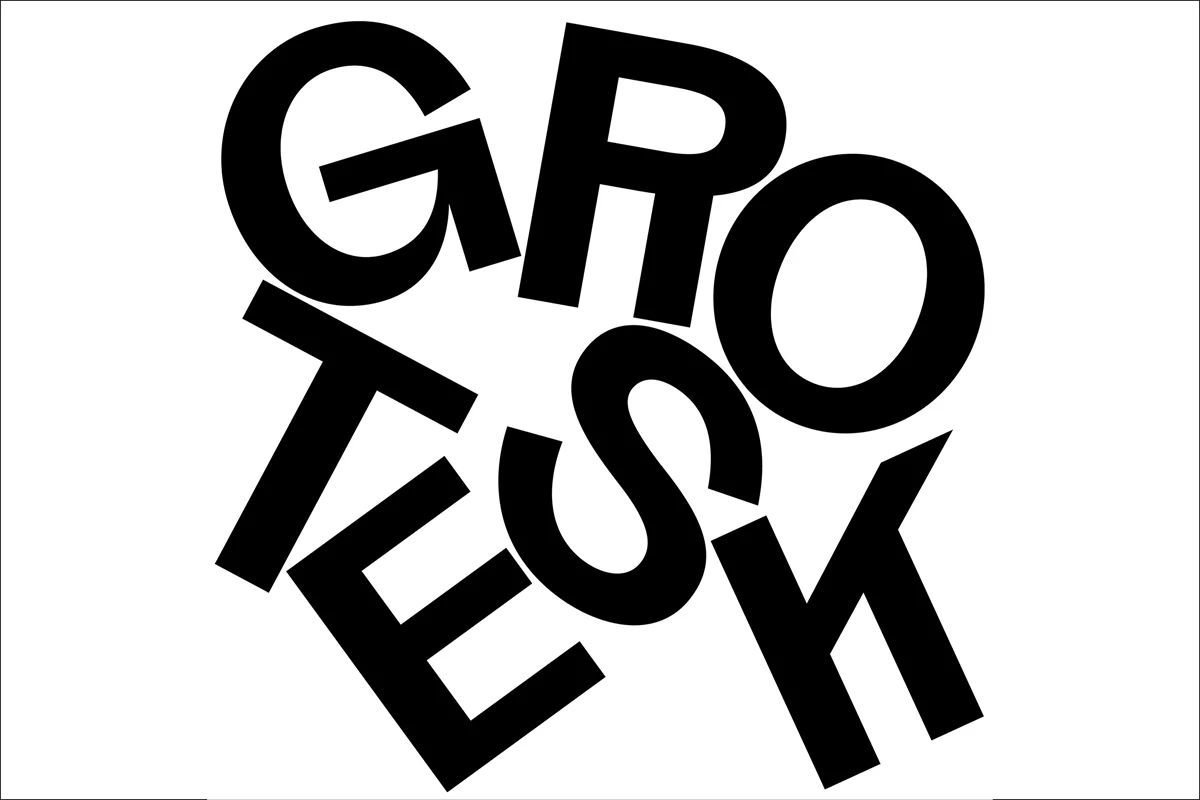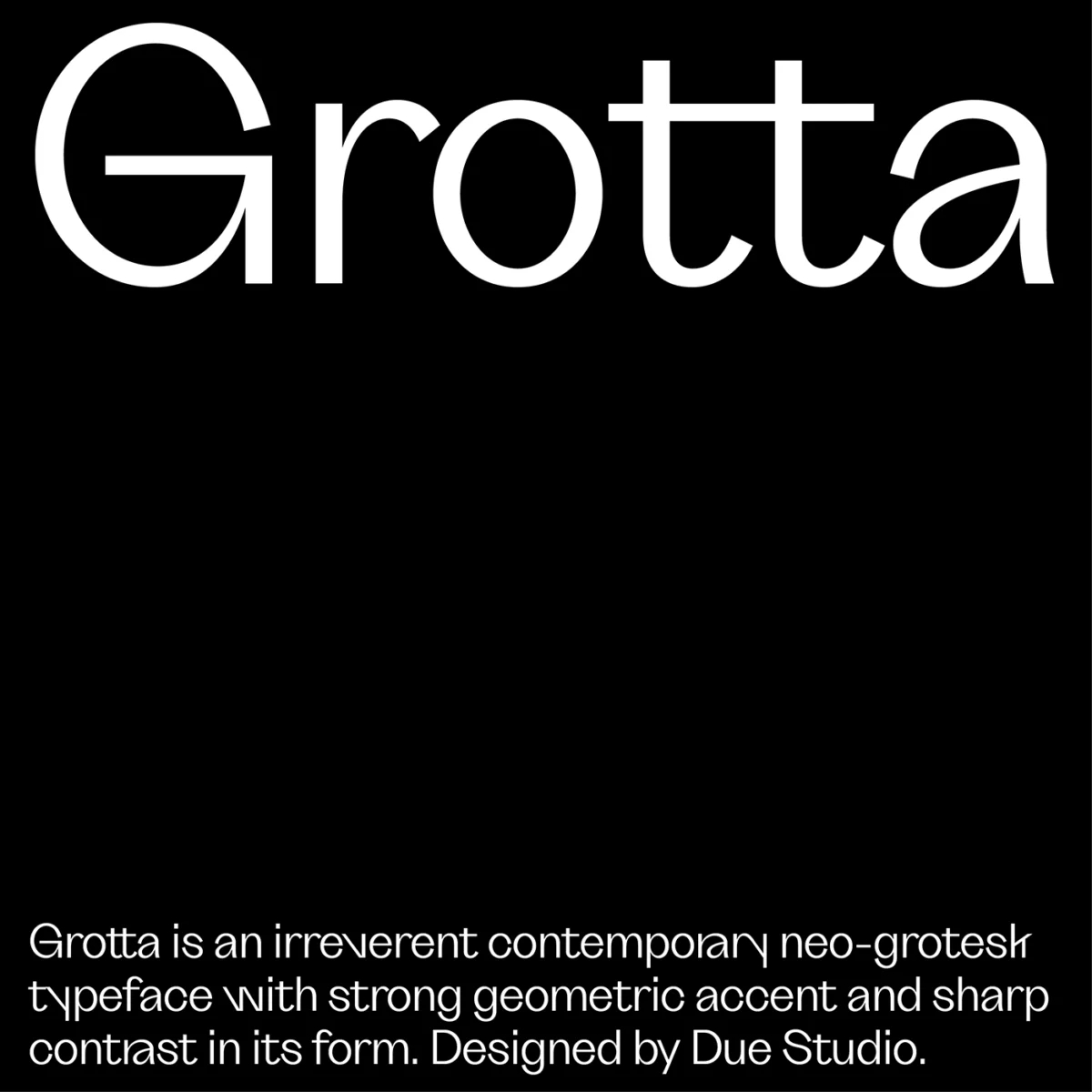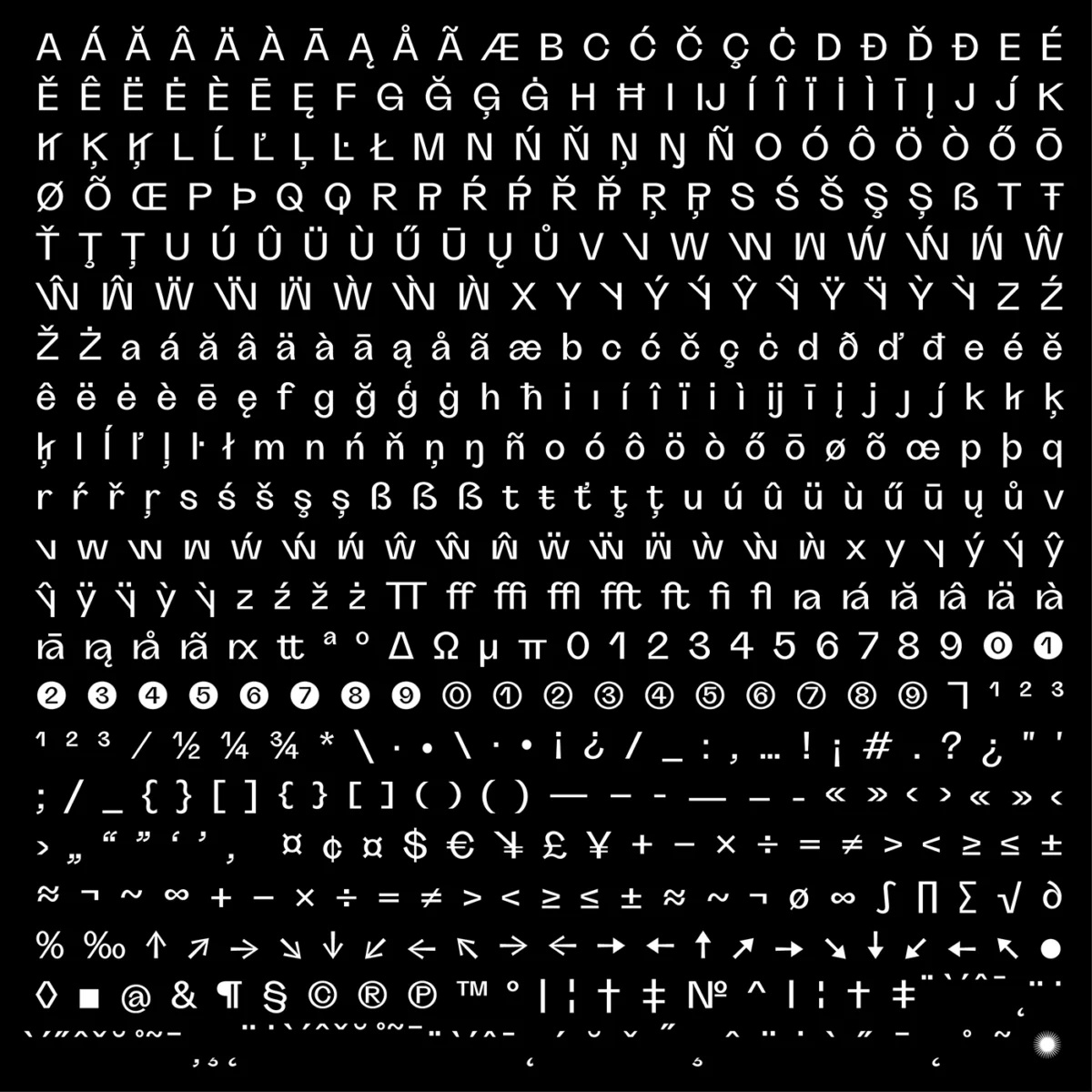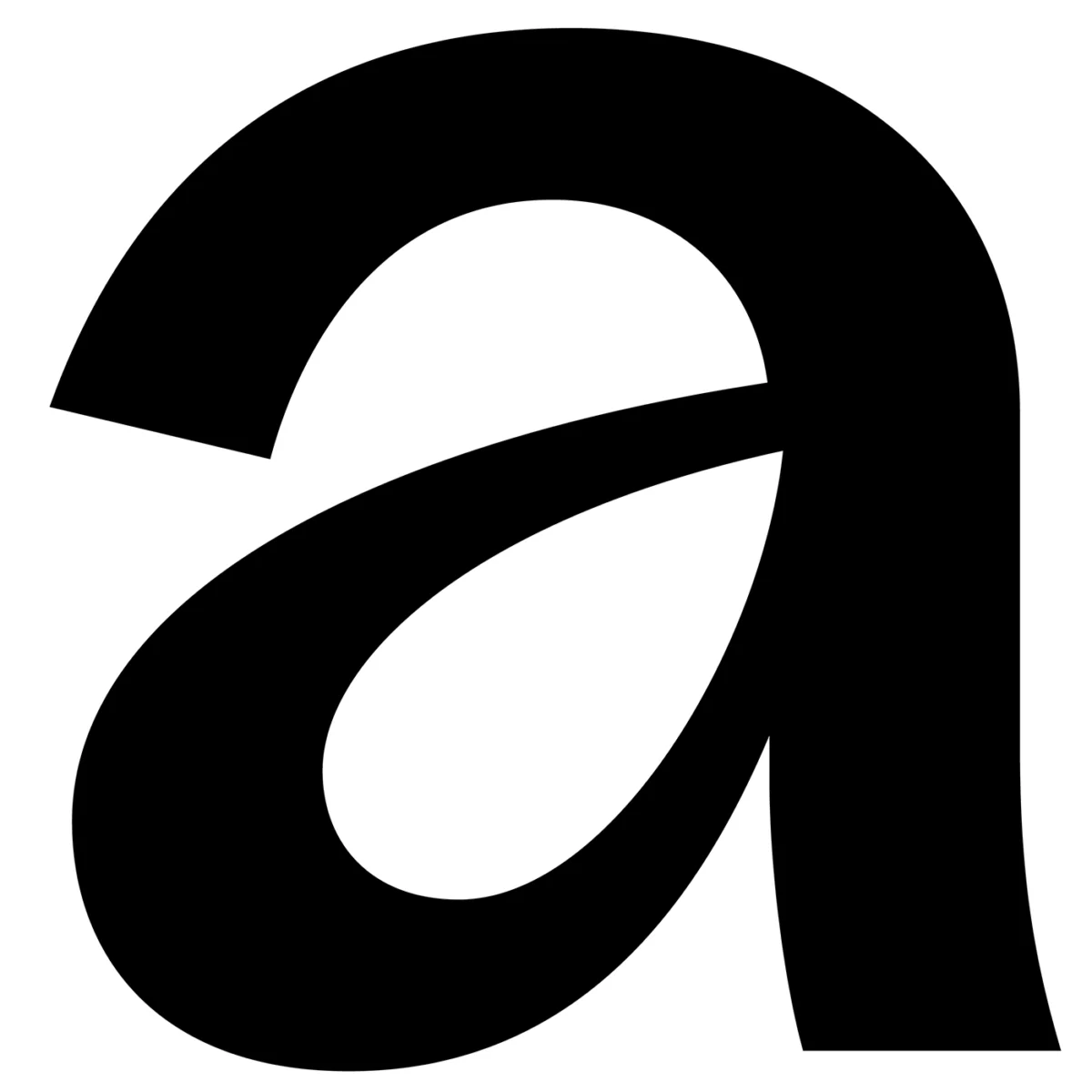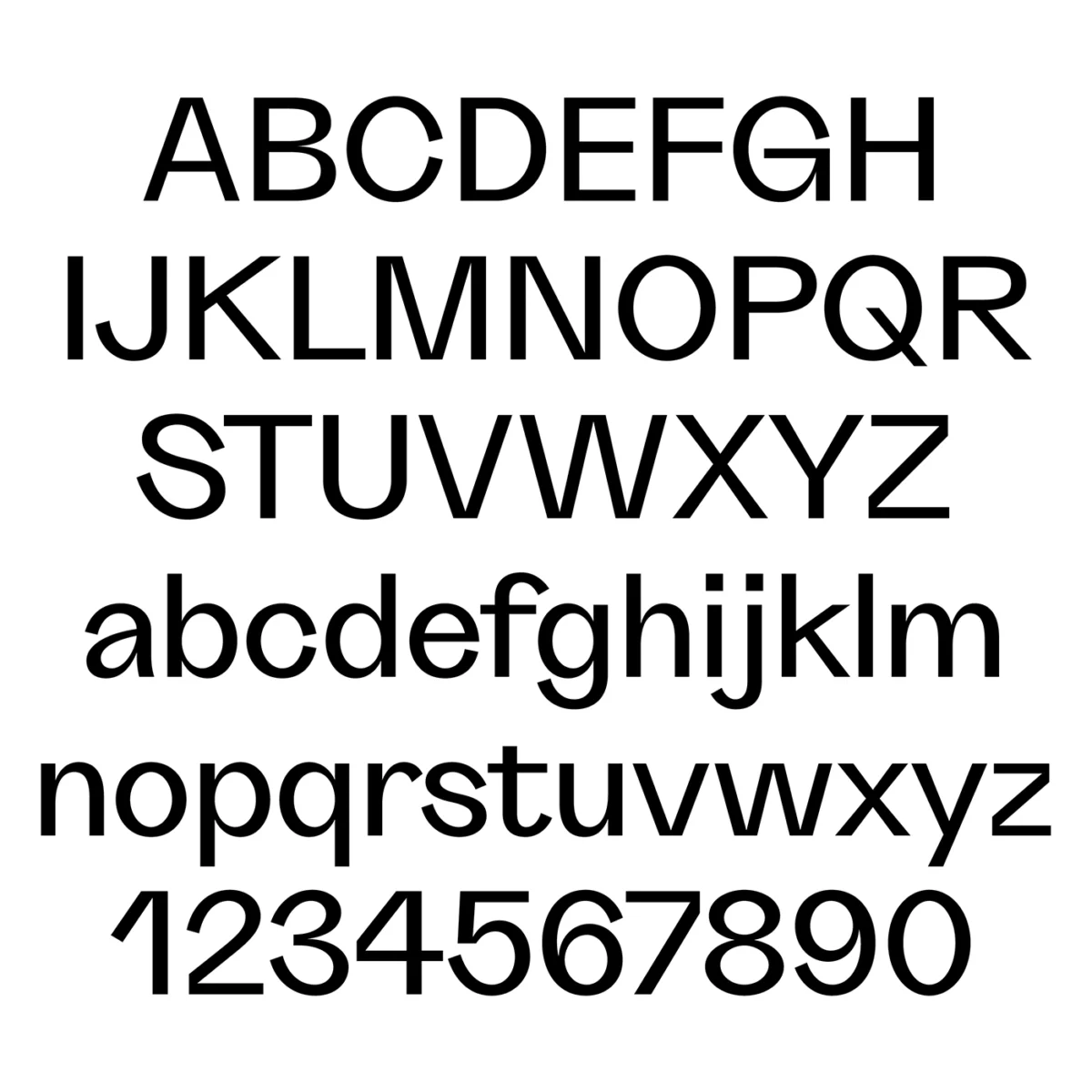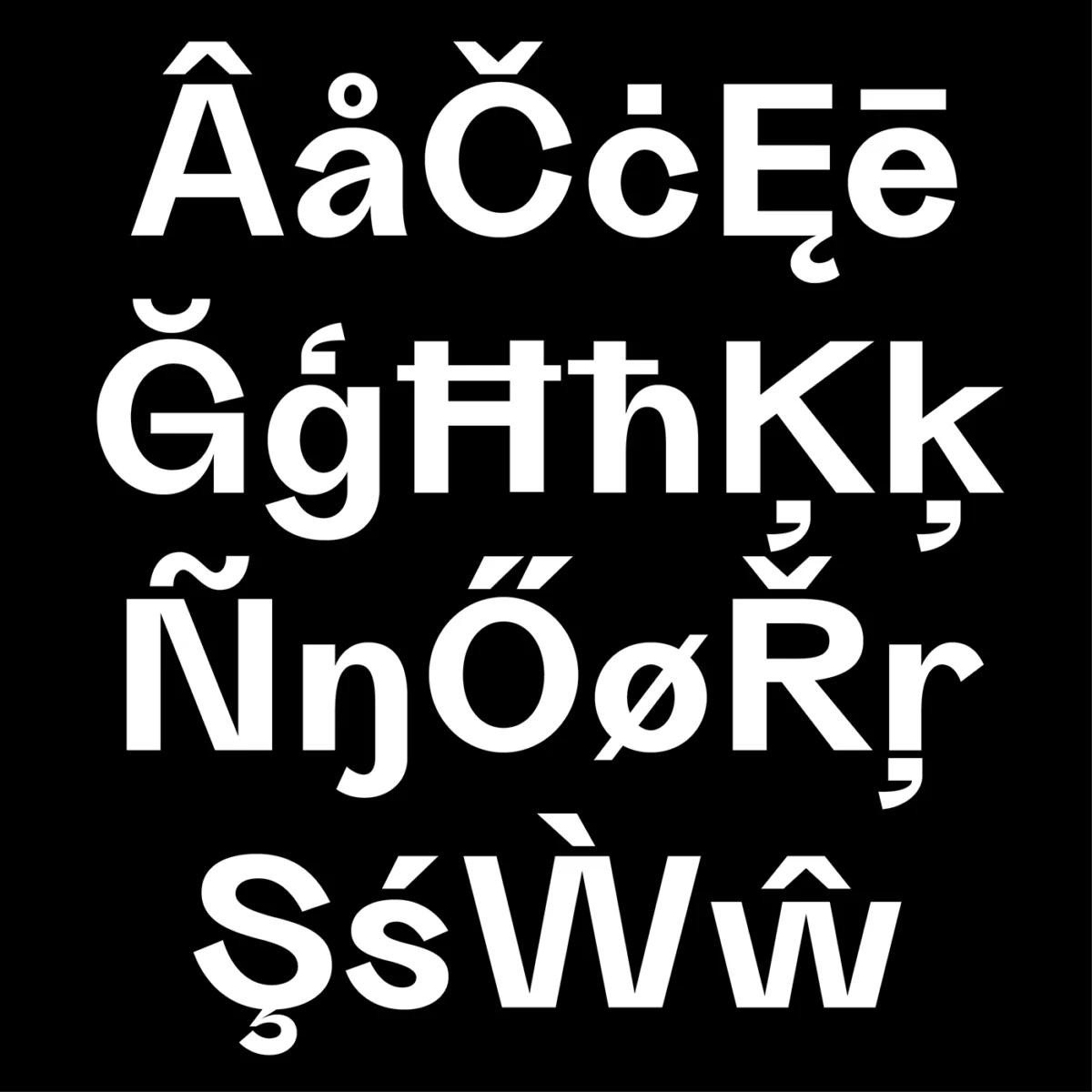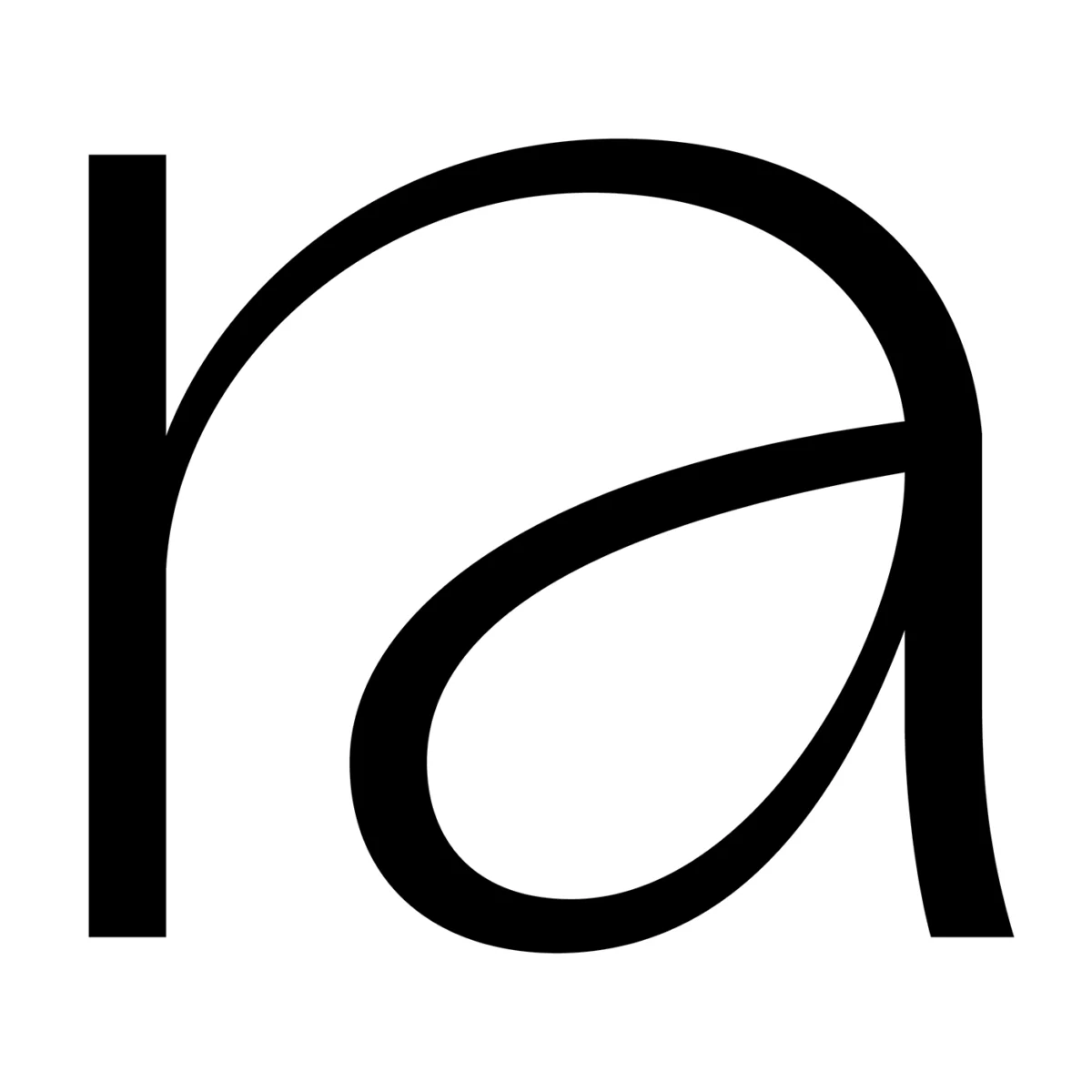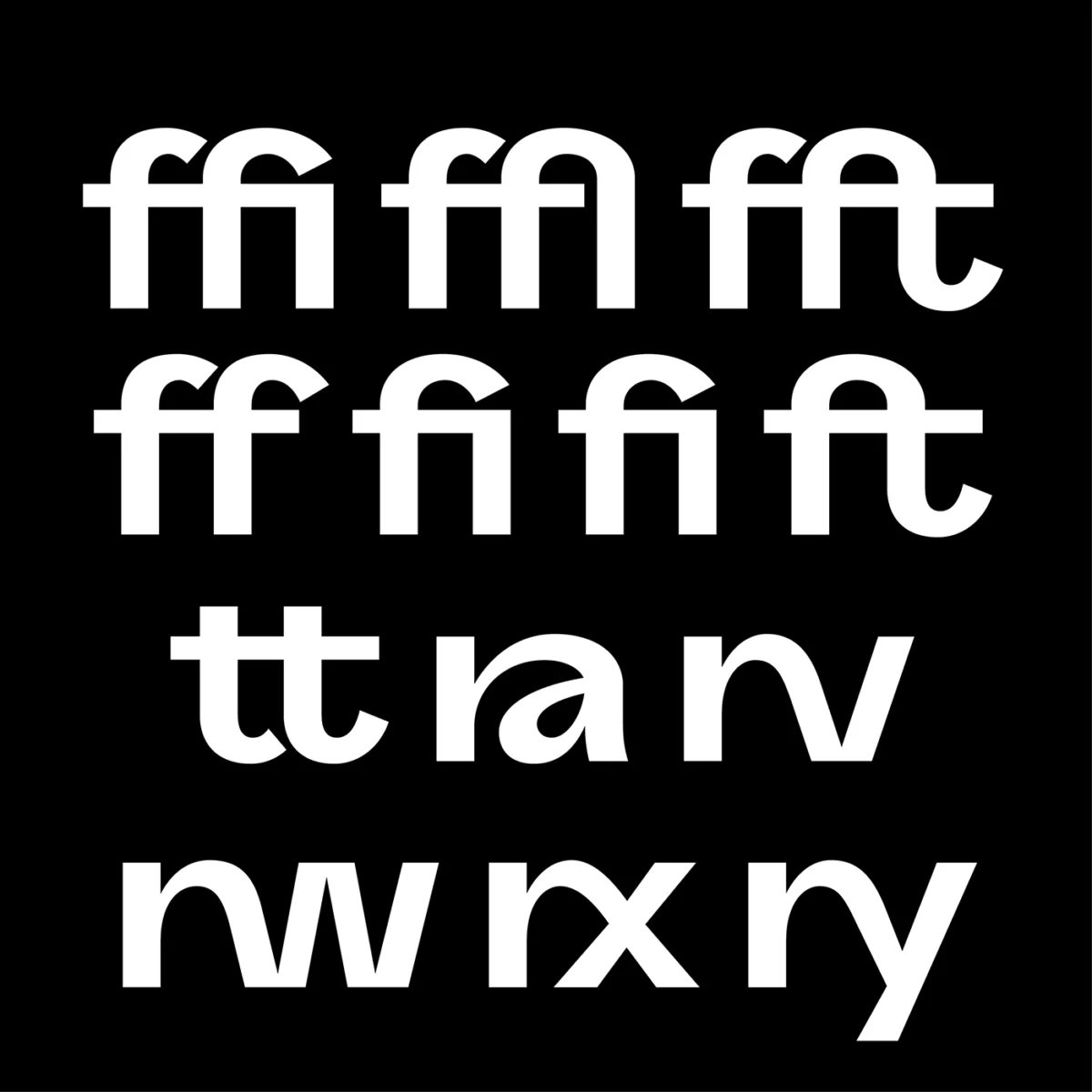
Founded by Alessio Pompadura and Massimiliano Vitti, Due Studio is a graphic design studio based in Perugia, Italy creating work surrounding typography, graphic design, print, editorial and visual identity.
Grotta is an is an ‘Irreverent and contemporary neo-Grotesk typeface’ featuring ‘strong geometric accents and sharp contrasts in its form’. Filled with tight apertures and finished with elegant kerning, Grotta‘s presence is direct and dynamic; sturdy yet artful. ‘It is our interpretation of the 21st-century Grotesk‘, the collective add, ‘Exuberant, irruptive, and of course winking at typefaces from the past such as Venus-Grotesk and Monotype Grotesque‘.
Aiming to represent the constant state of evolution and flux in the contemporary world, Grotta features a total glyph set of 599, Latin Extended-A, contextual alternates, case-sensitive forms, ligatures, fractions, localized forms and stylistic alternates. To get your hands on Grotta, head over to Type Department now!